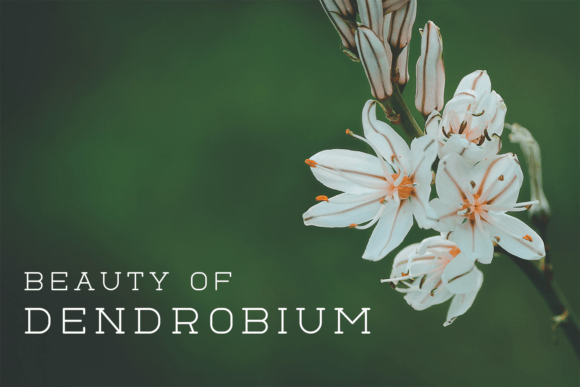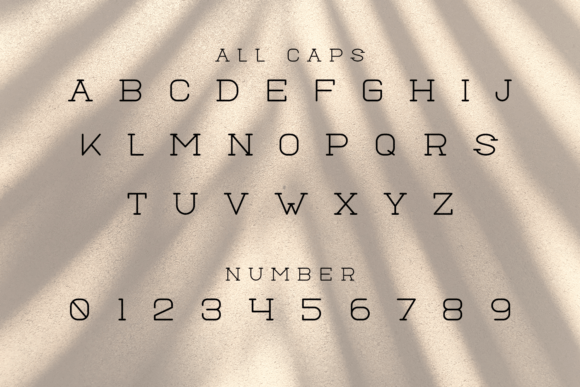
Introduction to Slabau Font
As designers, we’ve all been there – staring at a blank canvas, unsure of how to bring our creative vision to life. But what if I told you that there’s a secret ingredient that can elevate any project, no matter the topic or style? Enter the Slabau Font, a cool and unique serif font that’s about to become your new go-to design resource.
Imagine having the freedom to create with a high-quality font that’s perfect for any creative project, from sleek corporate designs to artistic masterpieces. The Slabau Font is more than just a pretty face – it’s a versatile tool that can add depth and sophistication to your work, with its clean lines and modern aesthetic.
Key Features of Slabau Font
- High-quality, free download font ideal for creative projects requiring a unique touch
- Unique Slabau Font style offers a modern and stylish aesthetic, making it an excellent design resource for various applications
- Supports a wide range of languages, including Latin, Cyrillic, and Greek alphabets, making it a versatile design resource
Honest Review: Slabau Font
As a designer, I’m always on the lookout for high-quality design resources that can elevate my creative projects. The Slabau Font is one such resource that caught my attention. With its sleek and modern design, this font is perfect for anyone looking to add a touch of sophistication to their work.
What works well: ✨ The Slabau Font has a clean and minimalist aesthetic that makes it incredibly versatile. It’s perfect for creating a professional-looking logo, typography-based art, or even a corporate identity. Additionally, the font comes with a transparent background, making it easy to customize and pair with other design elements.
What doesn’t work so well: ⚠️ While the Slabau Font is a great resource, it does come with some limitations. The font family is relatively small, which may not be ideal for projects that require a wide range of font sizes. Additionally, the font may not be as bold or expressive as some other fonts on the market.
Overall, I’m impressed with the Slabau Font and would definitely recommend it to fellow designers. Its high-quality design, transparent background, and free download make it a valuable addition to any design resource library.
- Perfect for creative projects that require a modern and sophisticated look
- Comes with a transparent background for easy customization
- Small font family may not be ideal for projects with multiple font sizes
Slabau Font is perfect for a wide range of creative projects, including logos, business cards, and social media graphics. Its high quality and unique design make it a great choice for designers looking for a versatile and stylish font.